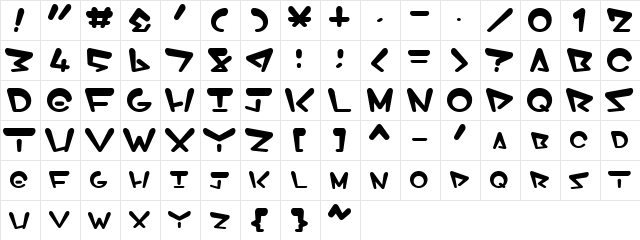
EosE Regular
Design Context for EosE Typeface
EosE is a composed and adaptable typeface that performs quietly and consistently across a wide range of design contexts.